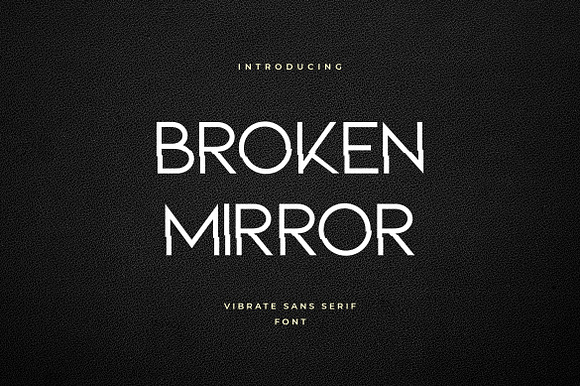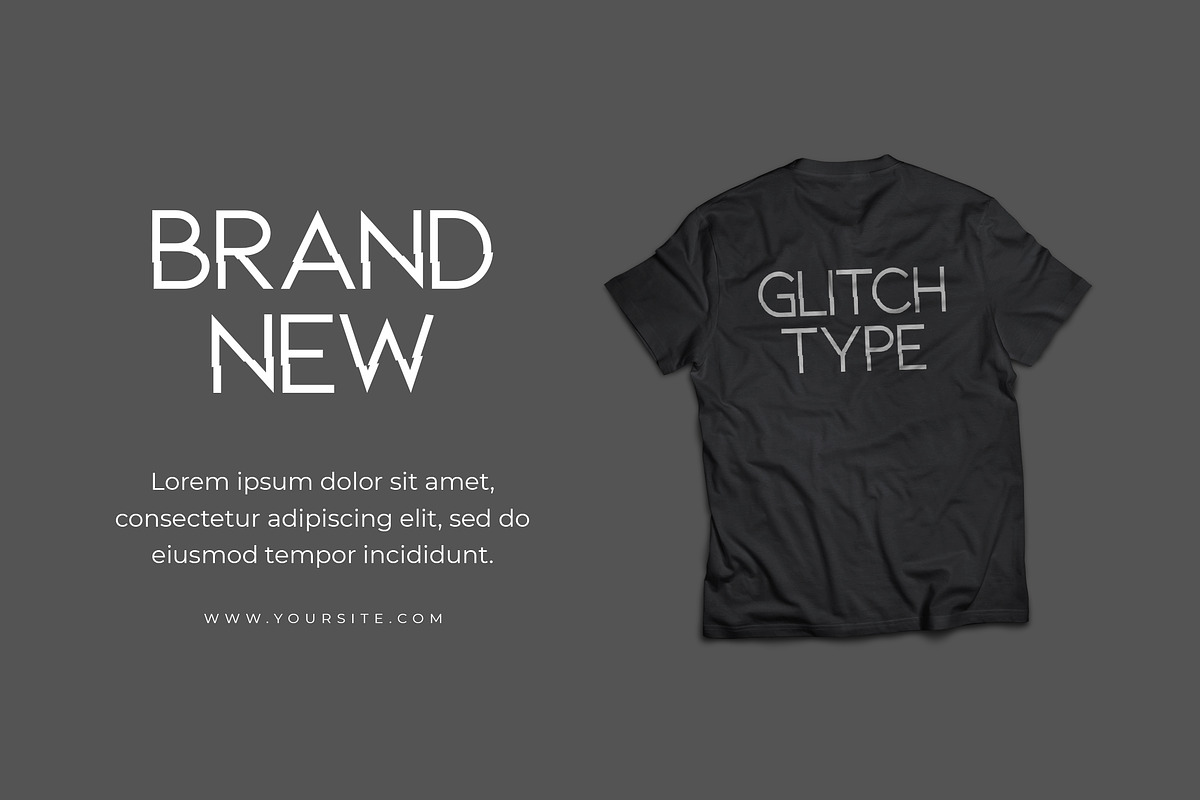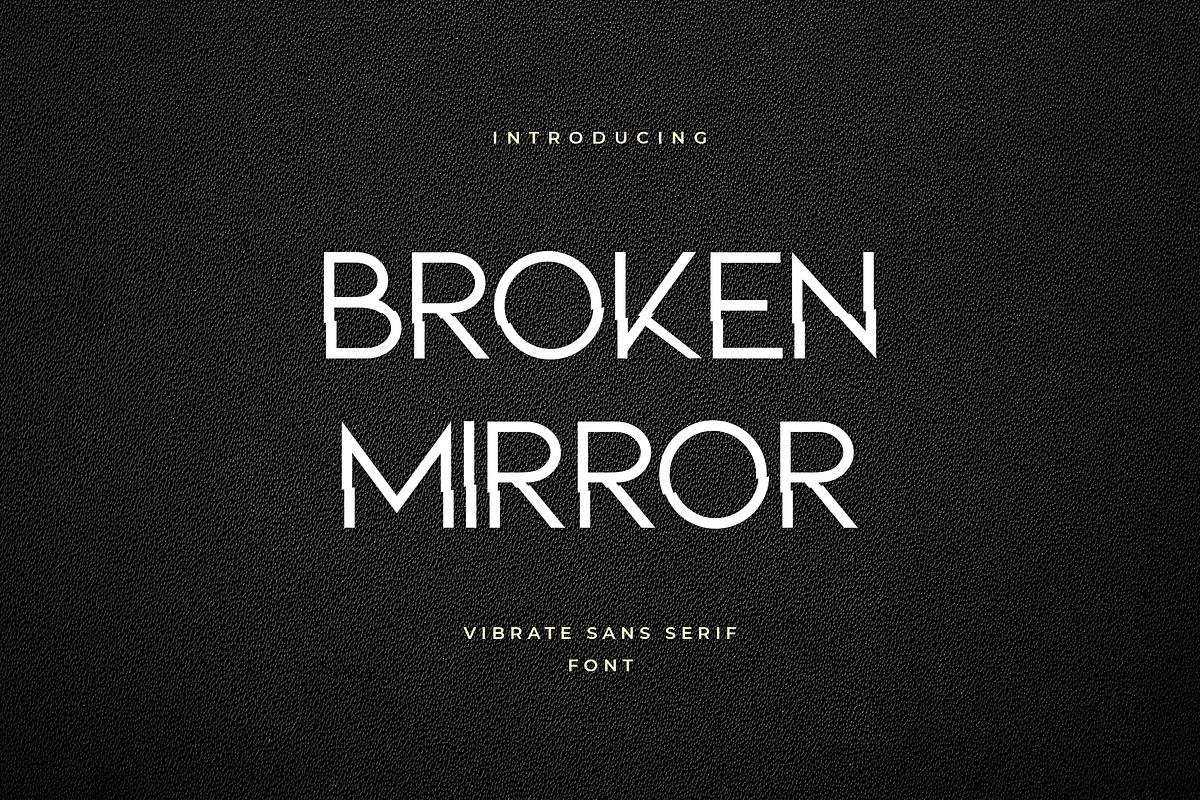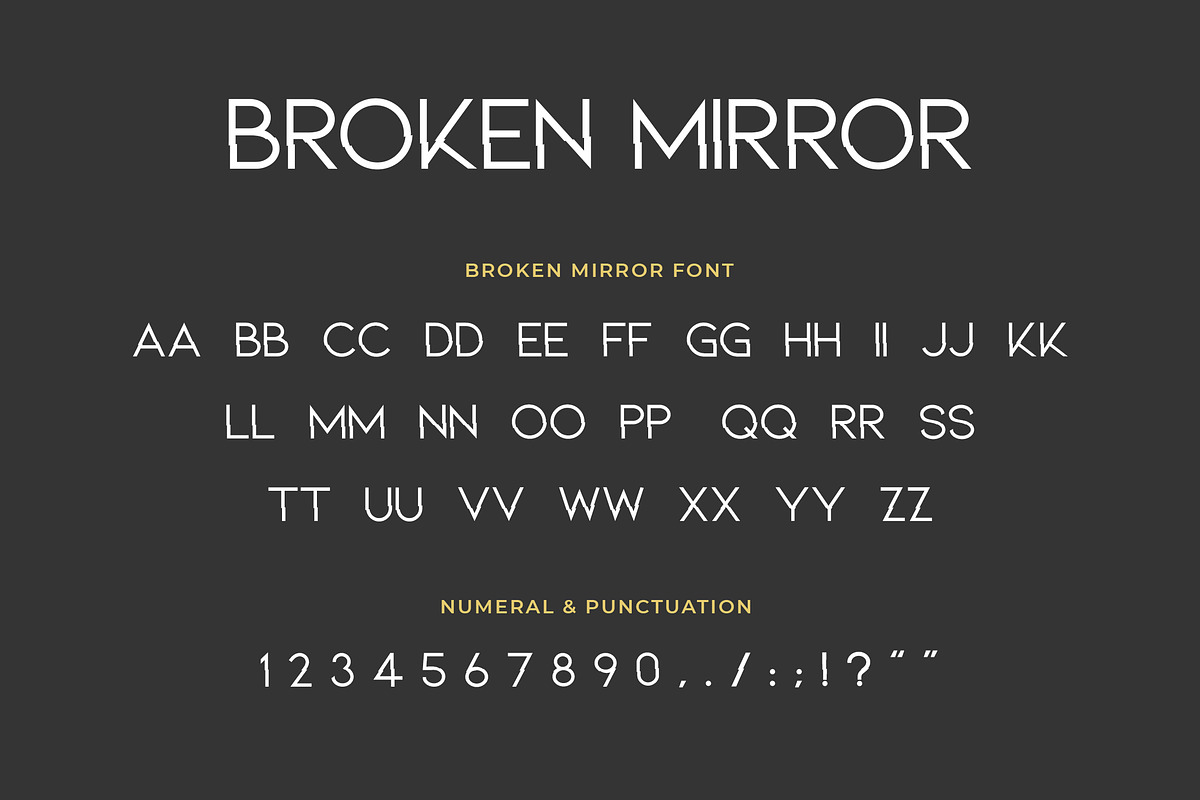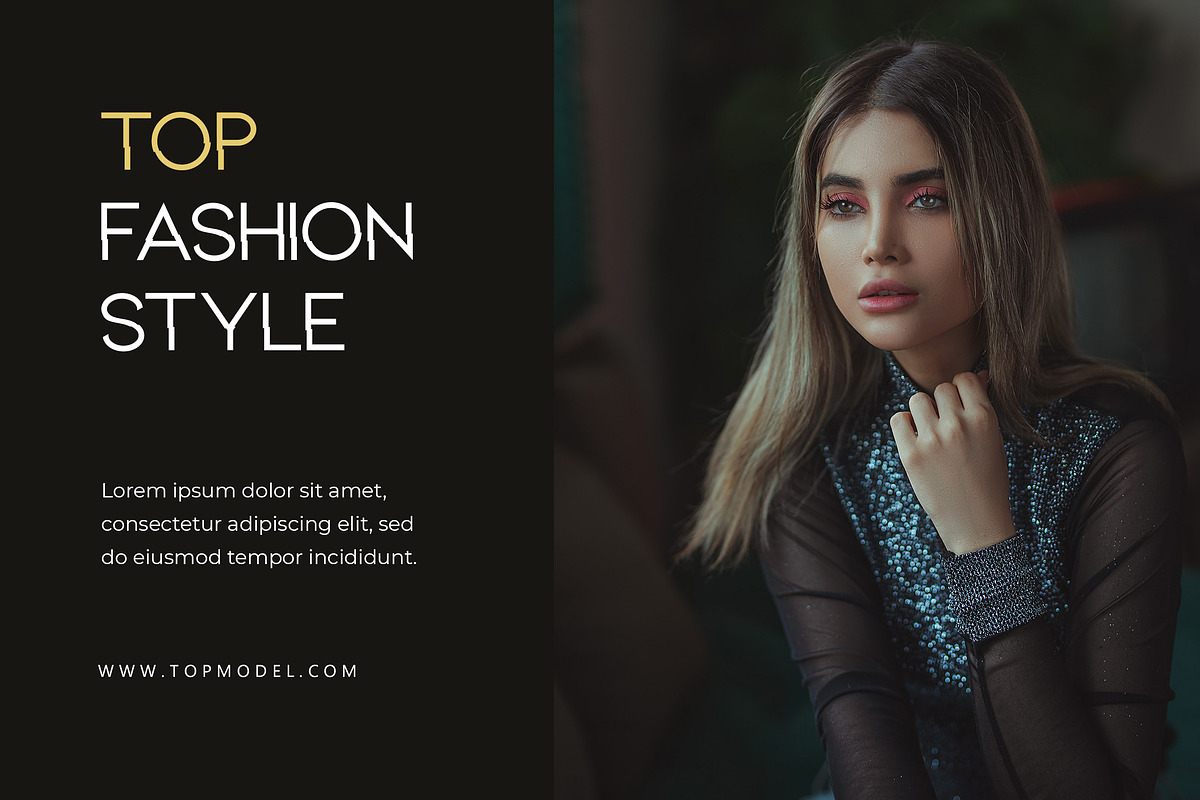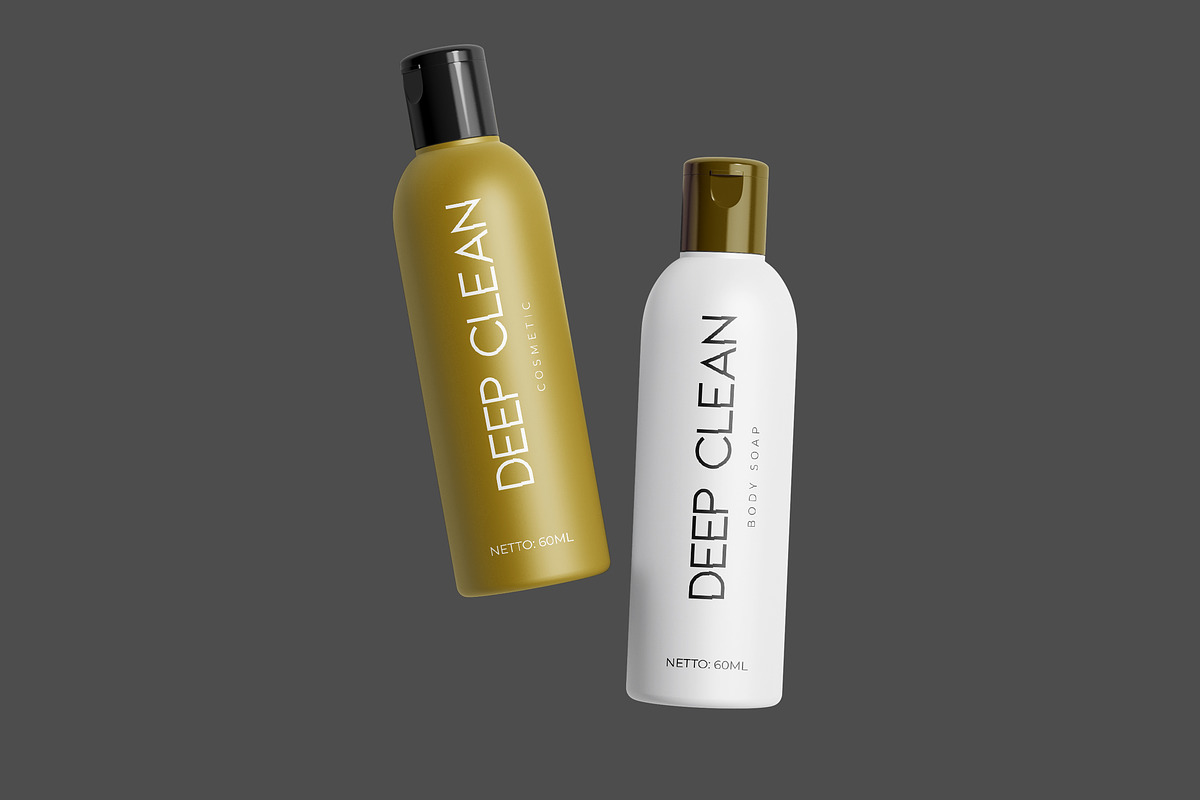
Broken Mirror Sans Serif Font
Broken Mirror Sans Serif Font crisp edges and modern touches. Perfect for any modern-design including logo, branding, posters, branding, logos, headlines, high fashion.
- Ton of glyphs
Broken Mirror Sans Serif Font by UICreative fits naturally into Branding, posters, packaging, typography.